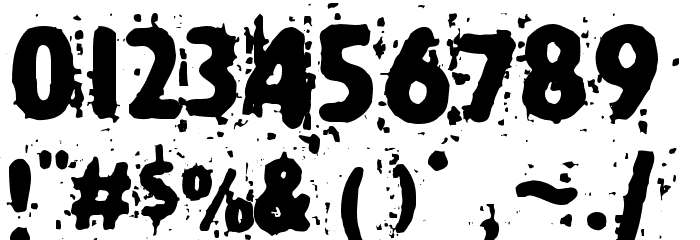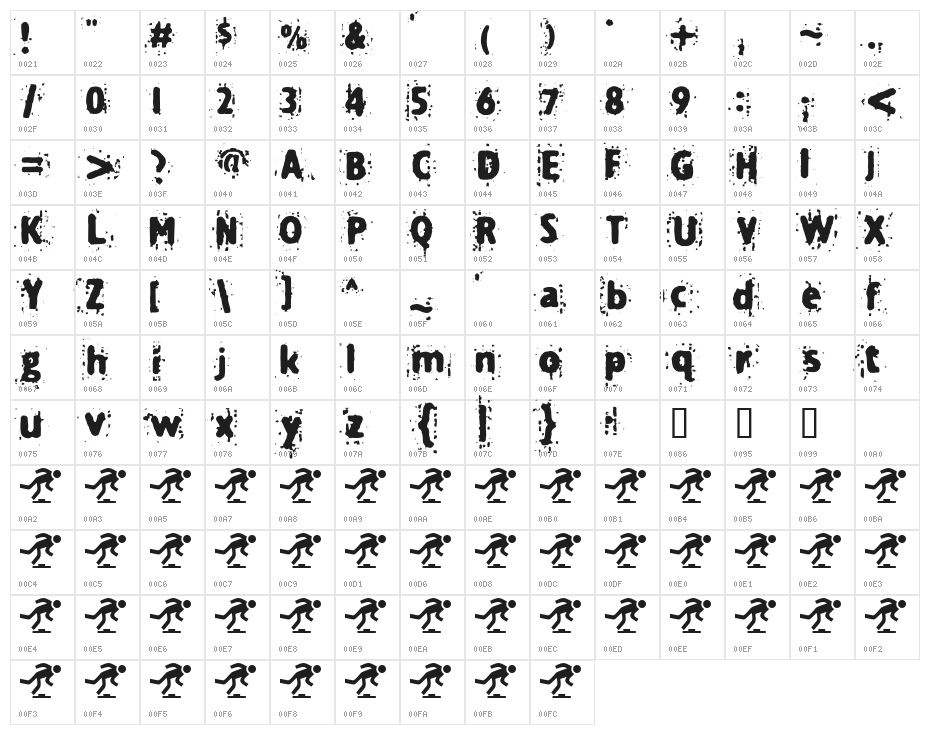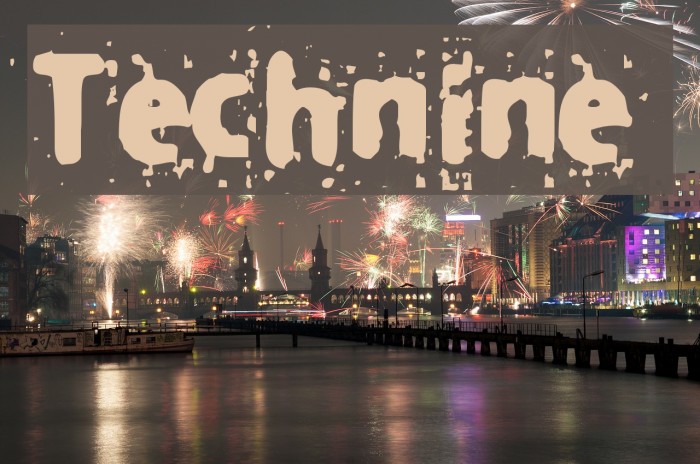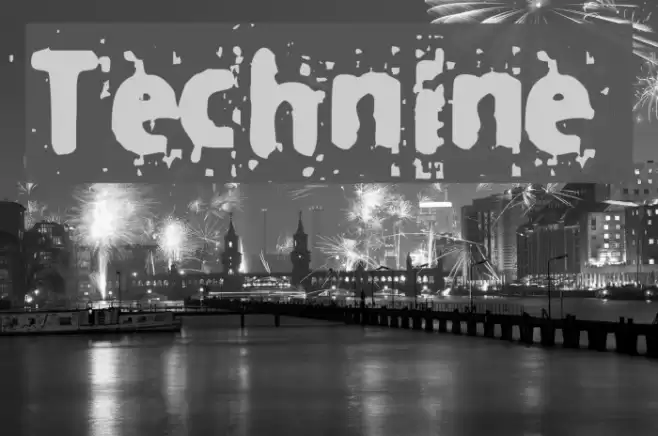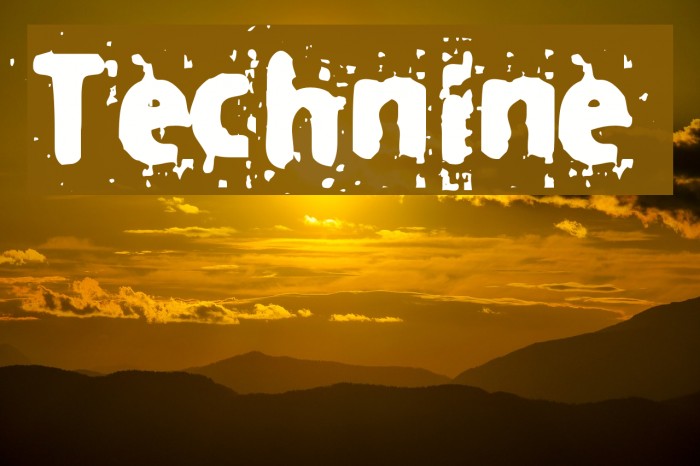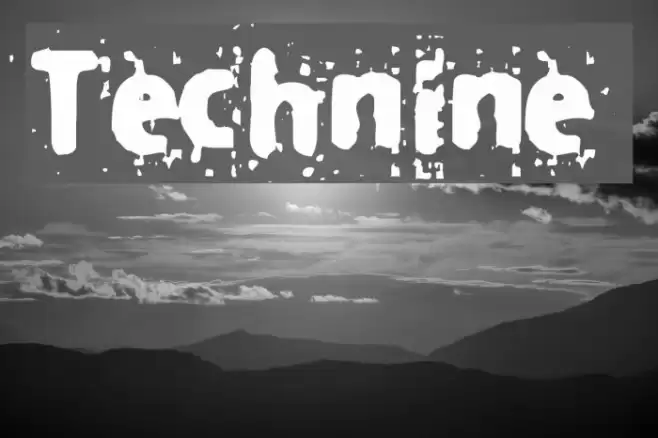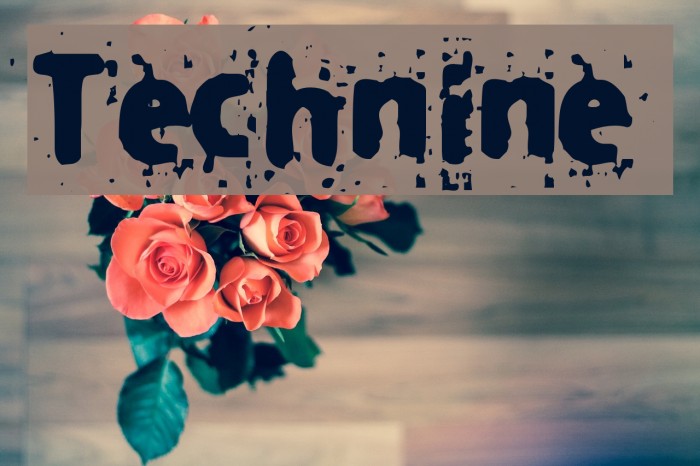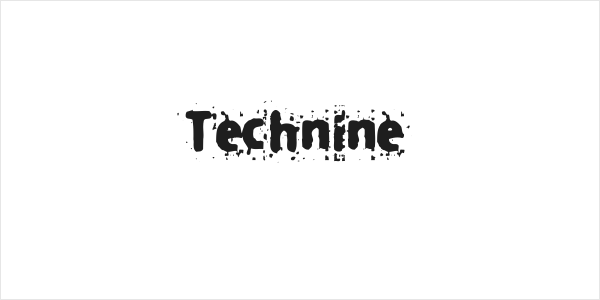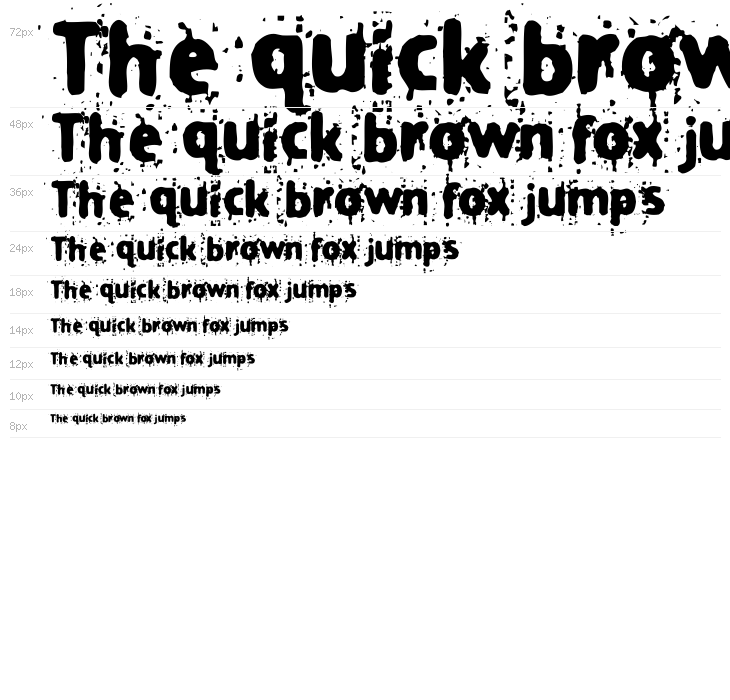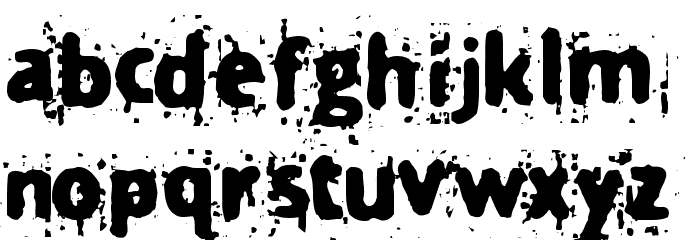
Technine Font
Technine Description
This font features a rugged, distressed appearance, reminiscent of worn-out textures and grunge aesthetics. The characters are bold and impactful, with irregular edges and a rough, weathered look that adds a sense of rawness and authenticity. The uppercase and lowercase letters maintain a consistent style, with the numbers and special characters following suit. This font's unique texture makes it stand out, providing a gritty and edgy feel that is perfect for projects needing a bold statement.
| Overall Style | Grunge, Edgy, Urban |
| Use Case | Headlines, Posters, Album covers |
| Proposed Projects | Ideal for music album covers, posters, urban-themed designs, and any project requiring a gritty, bold statement. |